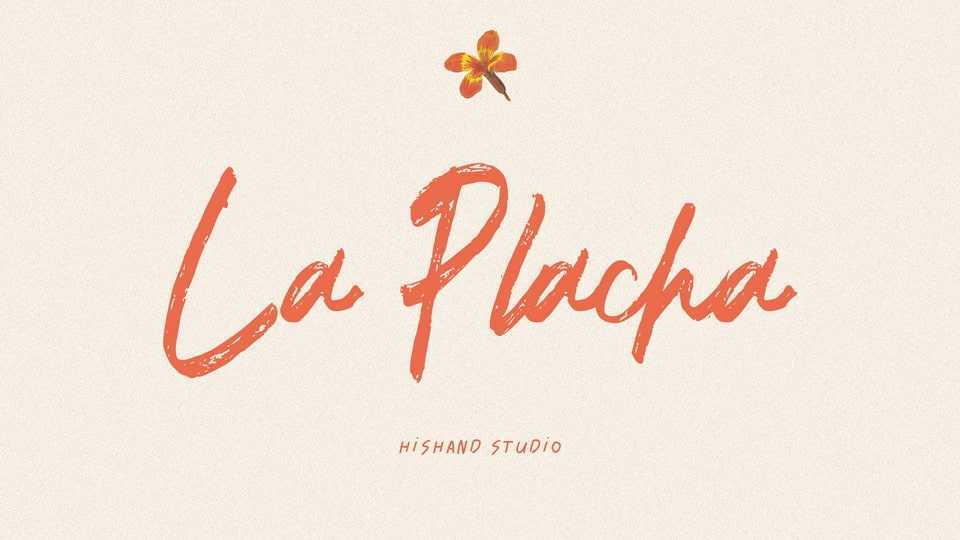
Download La Placha font, a stylish and expressive script brush typeface with a natural, hand-painted texture. Its flowing strokes and organic feel bring an artistic charm